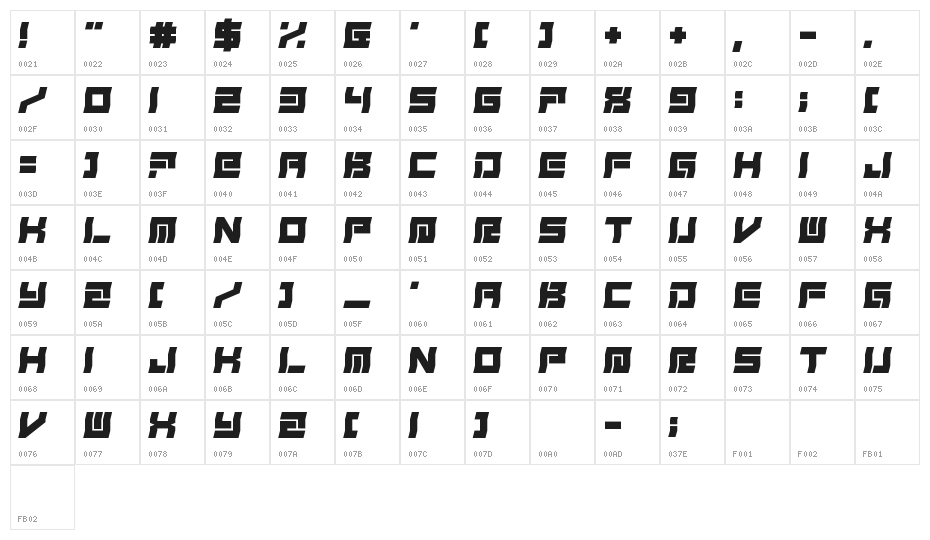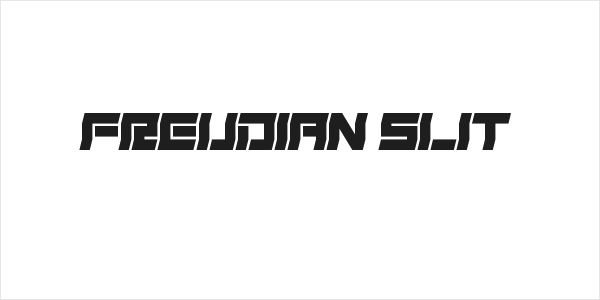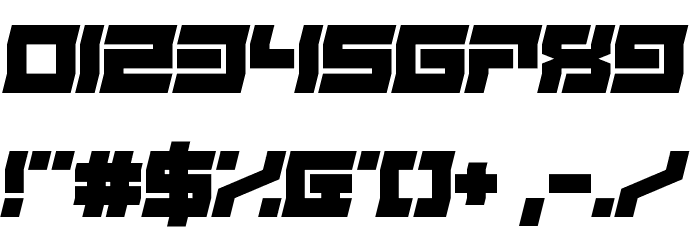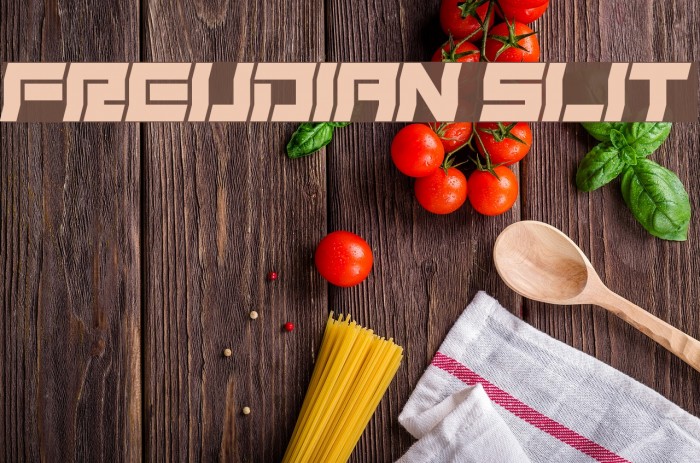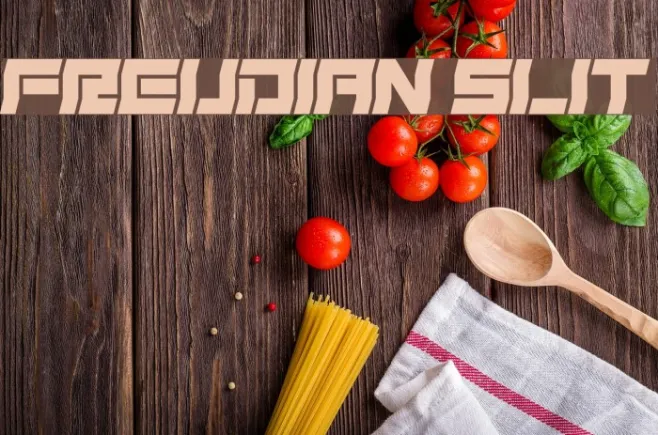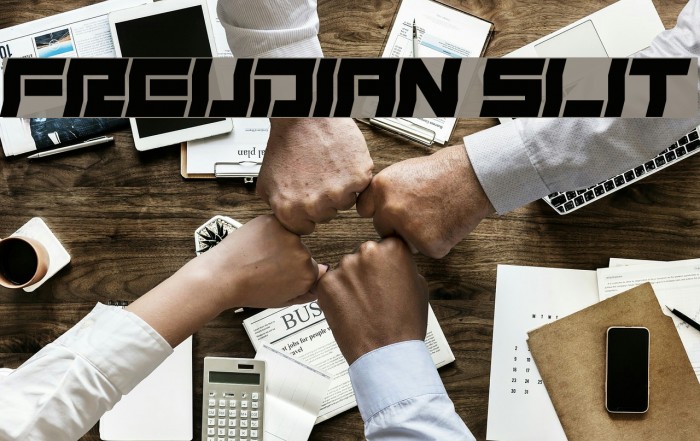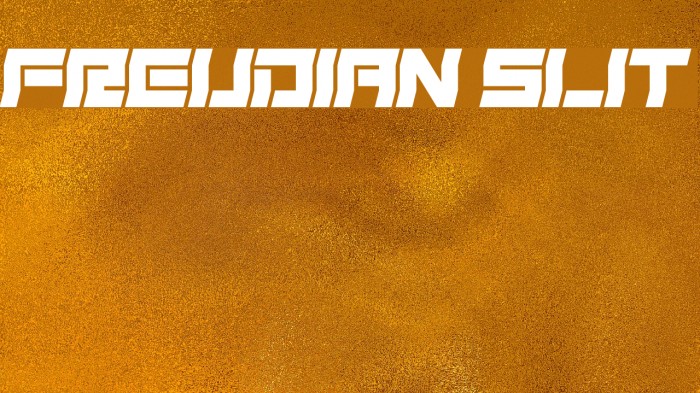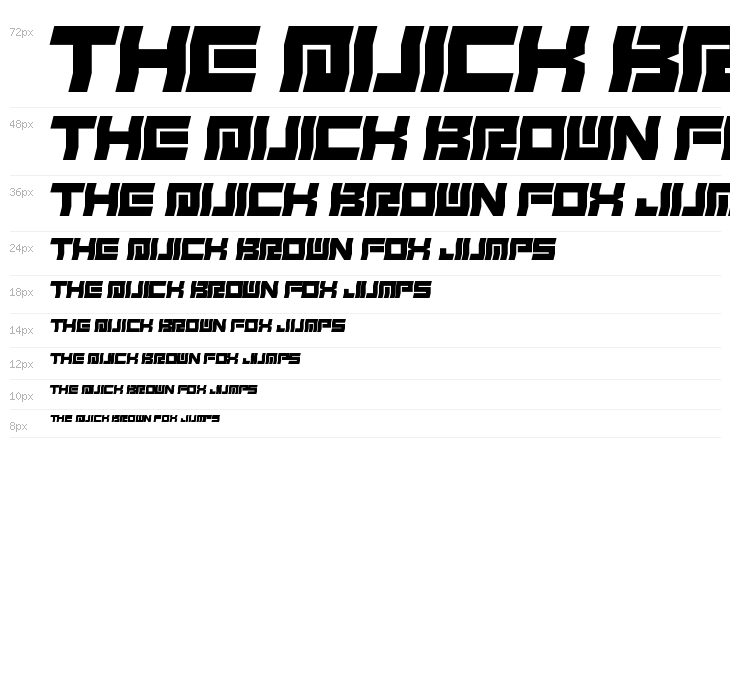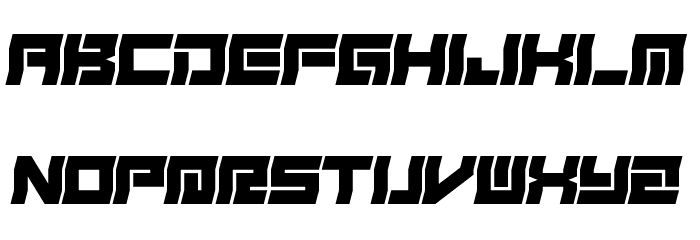
Freudian Slit Font
Freudian Slit Description
This font features a bold, futuristic design with angular and geometric shapes. The characters are constructed with sharp edges and a distinct block-like appearance, giving it a strong and assertive presence. The uppercase and lowercase letters maintain a consistent style, with the lowercase slightly smaller but equally bold. Numbers and special characters follow the same design principles, ensuring uniformity across all glyphs. The font's unique style makes it stand out, ideal for projects that require a modern and edgy look.
| Proposed Projects | Ideal for sci-fi themed projects, video game titles, tech branding, and modern posters. |